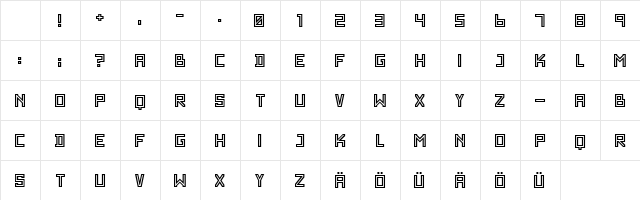
Complete SF WADIM GIANT OUTLINE glyph index. Displaying only characters natively supported by SF WADIM GIANT OUTLINE font.
SF WADIM GIANT is built around its visual character rather than neutral utility - its distinctive forms are designed to make an impression at display sizes.
Font Pairing: Pair with a clean neutral sans-serif for body copy to let SF WADIM GIANT's character lead without overwhelming the composition.
Pro Tip: Use SF WADIM GIANT exclusively at display sizes - it was designed to be seen, not read at length. Let a neutral companion handle body copy.
Who designed the SF WADIM GIANT OUTLINE font?